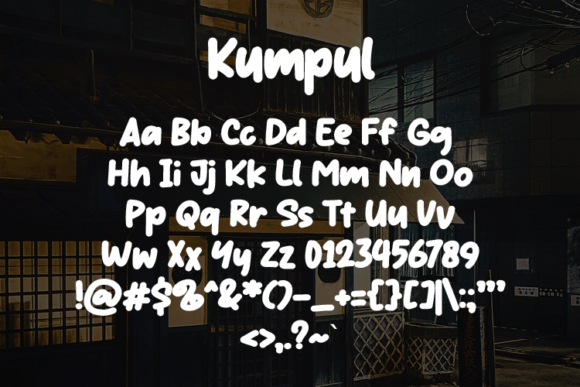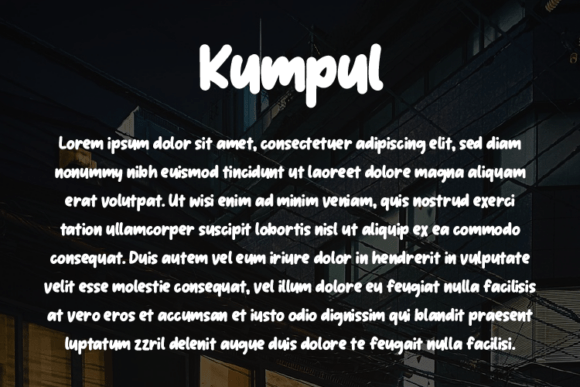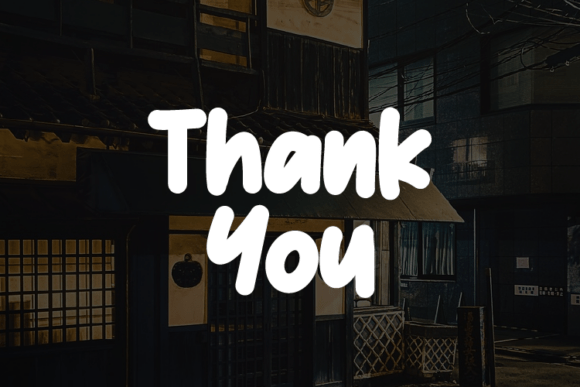
Introduction to Kumpul Font
Have you ever stumbled upon a design that instantly makes you feel like you’ve found a long-lost friend? That’s what happens when you encounter the Kumpul Font – a warm, rounded display font that wraps you in a cozy hug. Its soft edges and casual, hand-lettered flow make it the perfect companion for creative projects that require a human touch.
As a designer, you know the value of having a reliable design resource that can elevate your work. The Kumpul Font is that go-to font for brands that want to feel approachable, kind, and community-oriented. With its high legibility and relaxed vibe, it’s the perfect choice for community event flyers, friendly lifestyle branding, and casual cafe signage. Whether you’re working on a creative project or just need a font that feels like home, the Kumpul Font is a free download waiting to become your new best friend.
Key Features of Kumpul Font
- High-quality design resource for creative projects, perfect for designers and artists looking for a unique font.
- Features a transparent background, making it easy to use on any background or design element.
- Comes in a single weight, with a font size of 1024 characters, and a resolution of 300 DPI, ideal for print and digital use.
- Unique characteristics include a bold and playful style, making it perfect for adding a creative touch to any design project.
Honest Review: Kumpul Font
As a designer, I’m always on the lookout for high quality design resources that can elevate my creative projects. Recently, I stumbled upon the Kumpul Font, and I’m excited to share my honest review with you.
- ✨ High-quality font with a unique aesthetic that’s perfect for creative projects.
- ✨ Transparent background, making it easy to customize and integrate into any design.
- ⚠️ Limited font styles and weights, which might not be suitable for complex design projects.
Overall, I’m impressed with the Kumpul Font’s potential, but it’s essential to weigh its limitations before incorporating it into your design resource library. As a free download, it’s an excellent addition to any designer’s toolkit, but it’s not a one-size-fits-all solution.
To get the most out of Kumpul Font, use it in conjunction with other design elements that complement its style. Experiment with different font sizes, colors, and styles to create a unique look. You can also use Kumpul Font as a starting point for your design and then add other elements to create a cohesive and high quality design.
Kumpul Font is a versatile design resource that can be used in a variety of creative projects, including logos, business cards, and social media graphics. Its transparent background makes it easy to use on top of other design elements, and its high quality ensures that your design will look professional and polished.